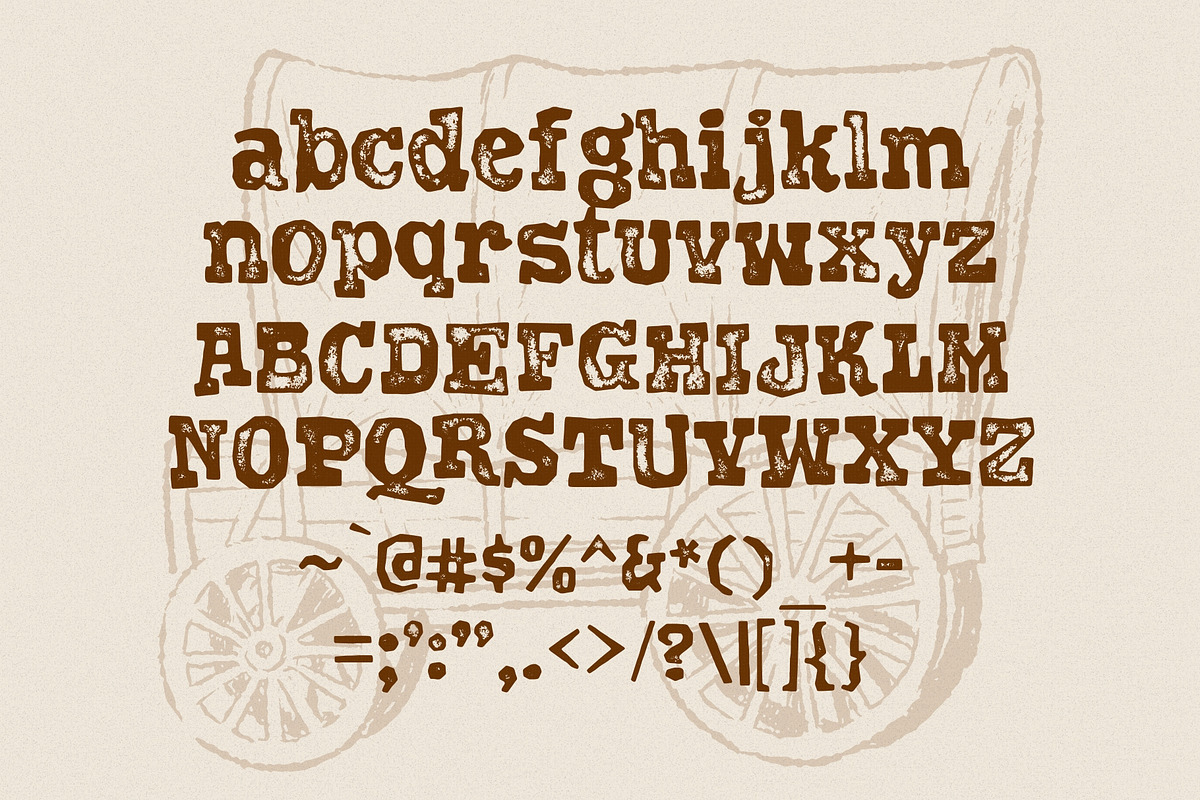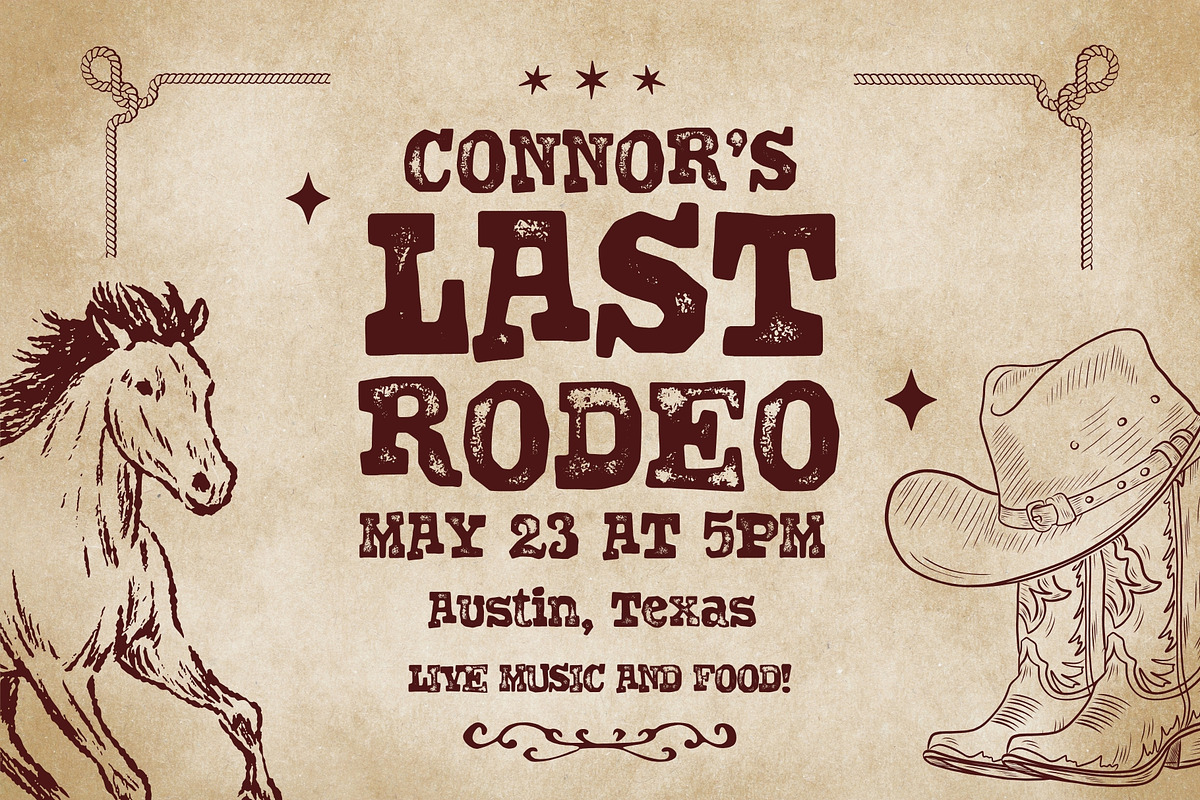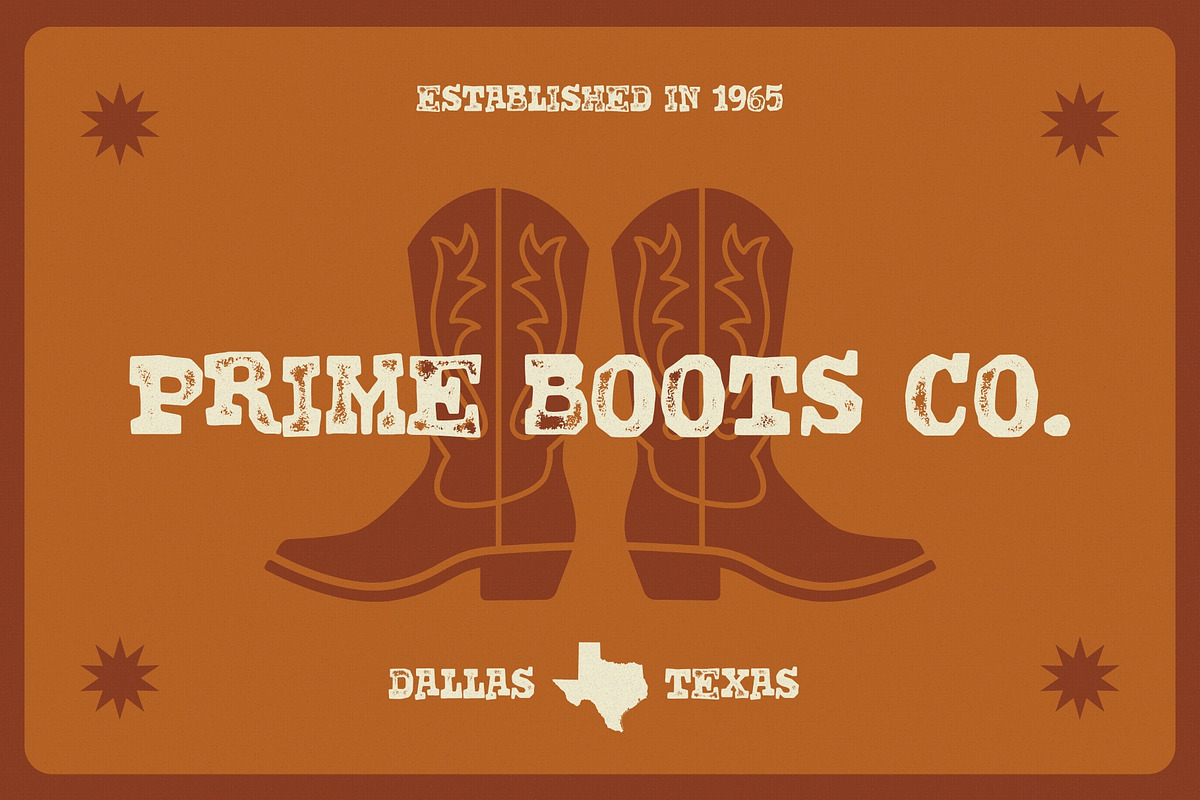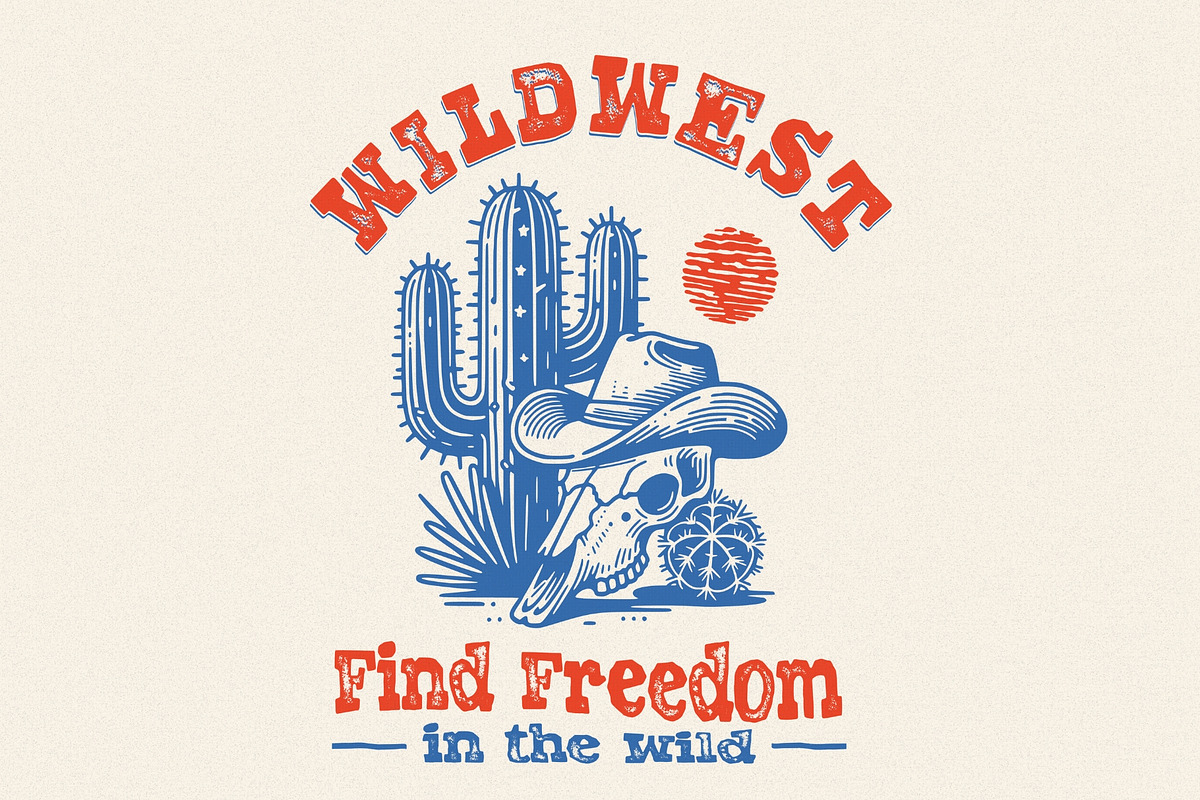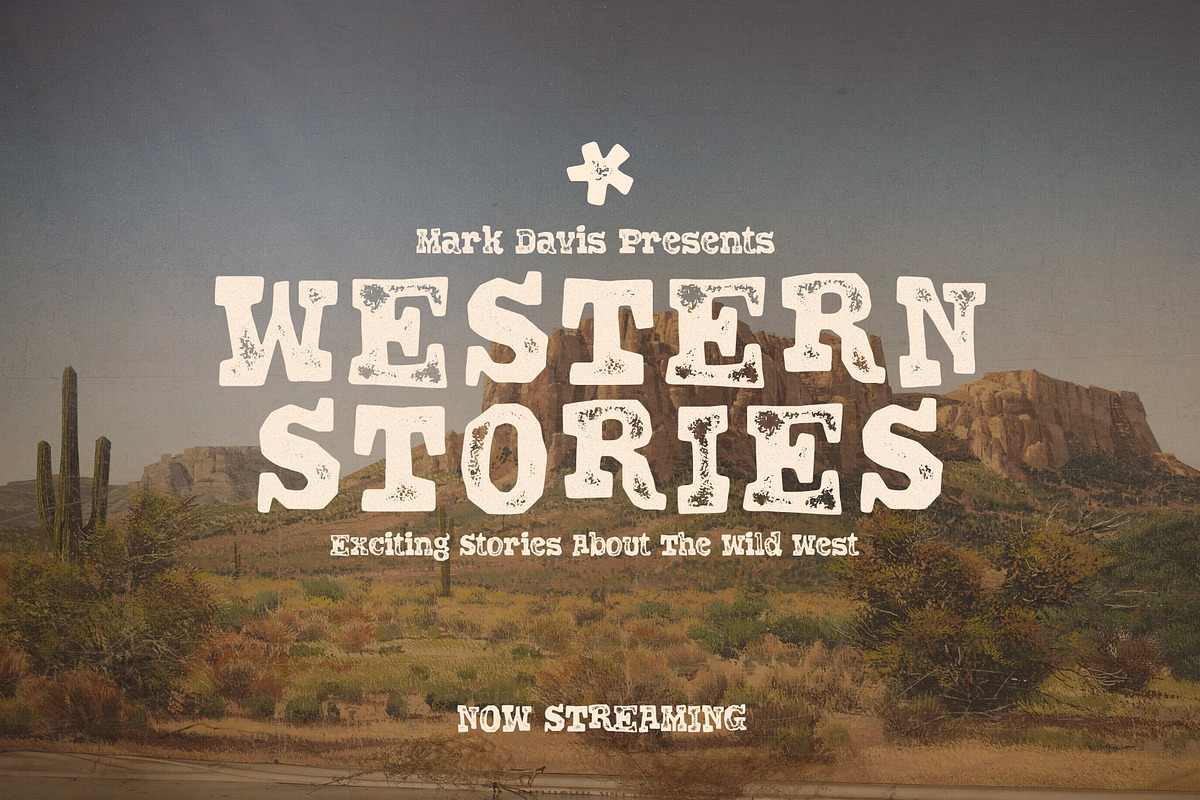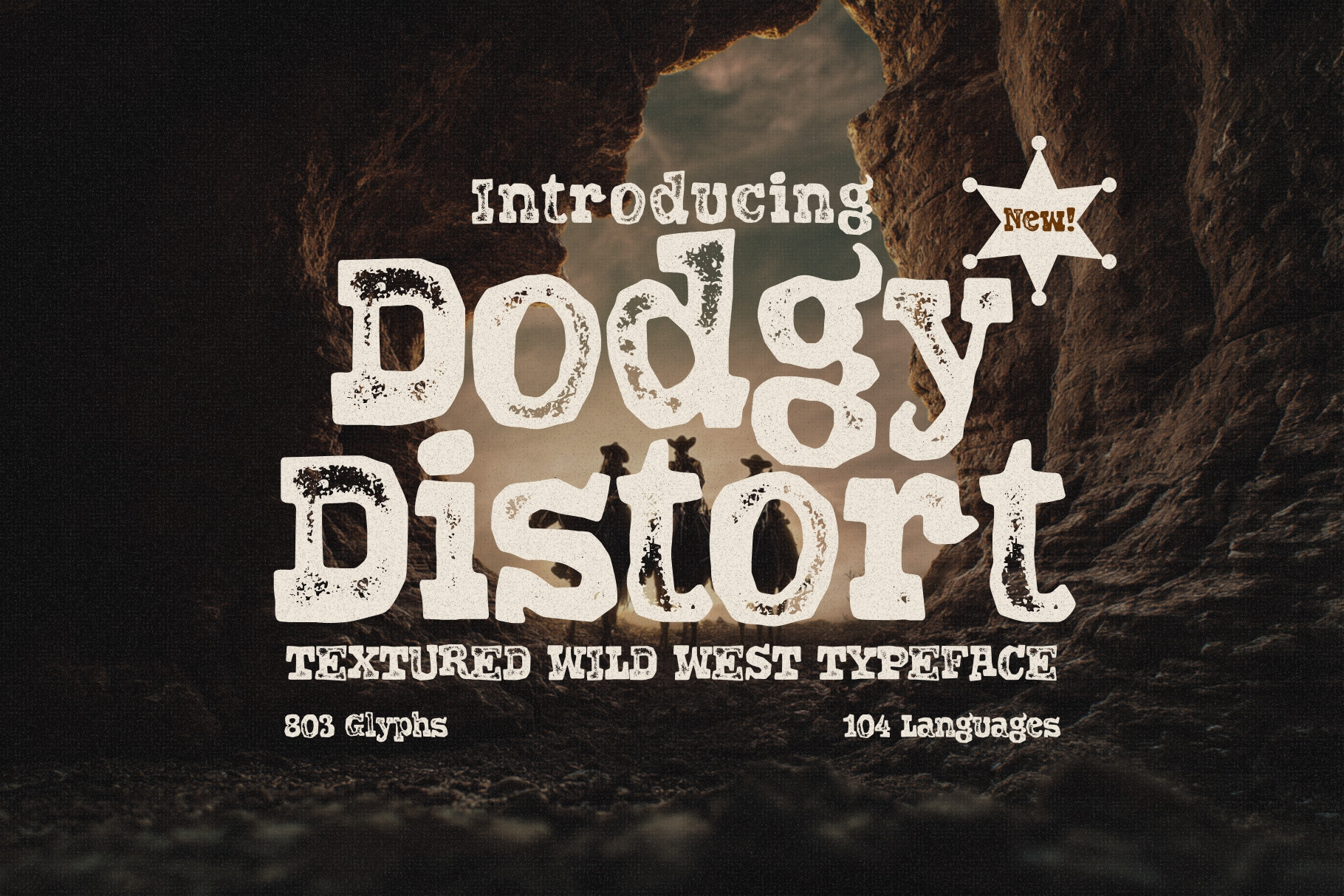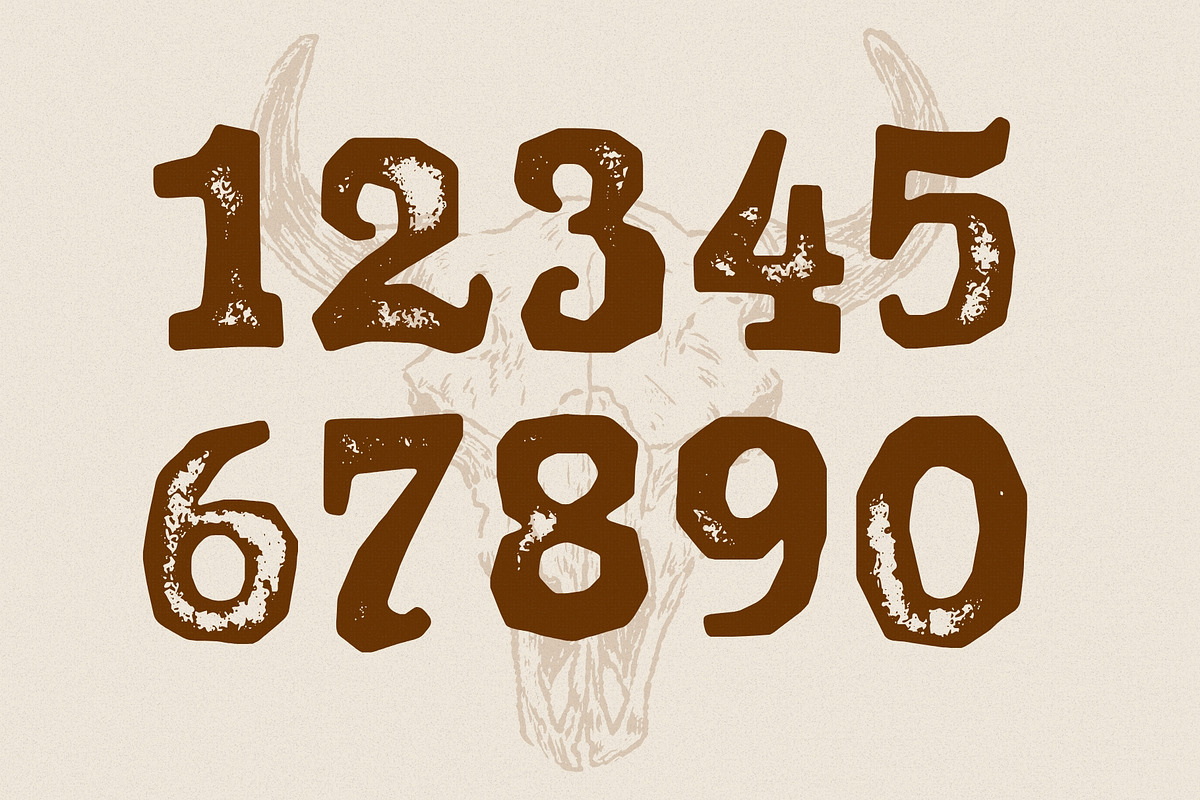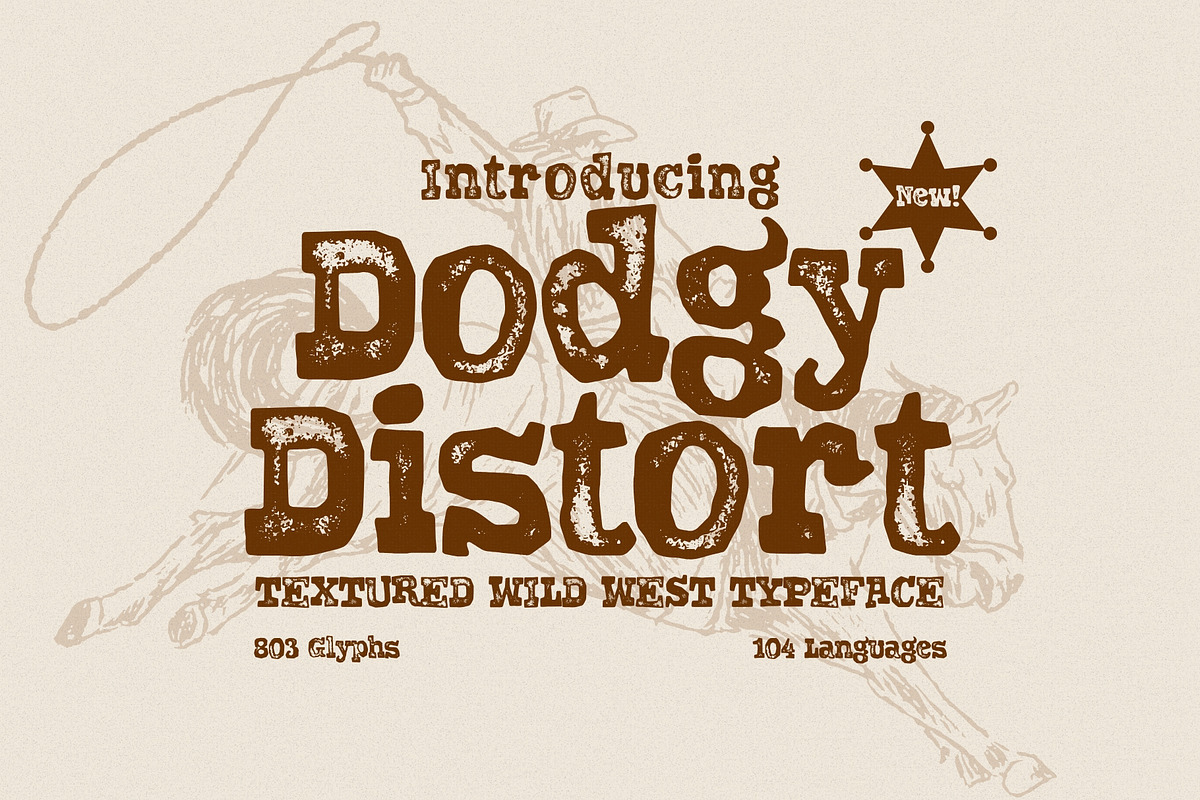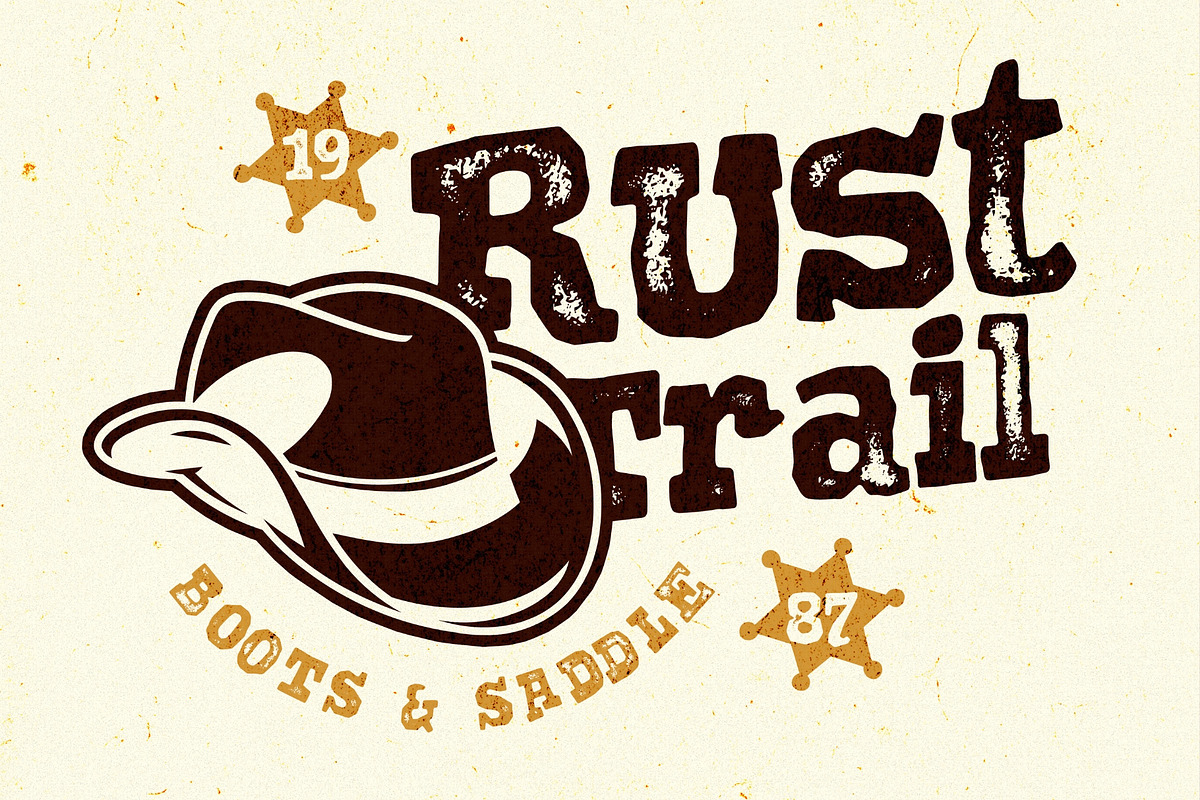
Dodgy Distort - Wild West Typeface
Dodgy Distort is a wildly charismatic Wild West typeface that brings the dust, grit, and swagger of the frontier to your fingertips. With its 803 glyphs and support for 104 languages, this font doesn’t just talk the talk, it draws fast.
Quirky, imperfect, and full of old-world charm, Dodgy Distort blends visual beauty with rugged authenticity. It features built-in texture that gives each letter a timeworn look, like it was printed on faded wanted posters or scrawled across a saloon sign battered by desert winds.
Whether you’re creating western-themed logos, vintage branding, whiskey labels, rodeo posters, or anything that needs that true Americana grit, Dodgy Distort delivers an unforgettable punch. Its hand-done feel, realistic flaws, and typographic charm make it one of the most distinctive Wild West fonts in the digital frontier.